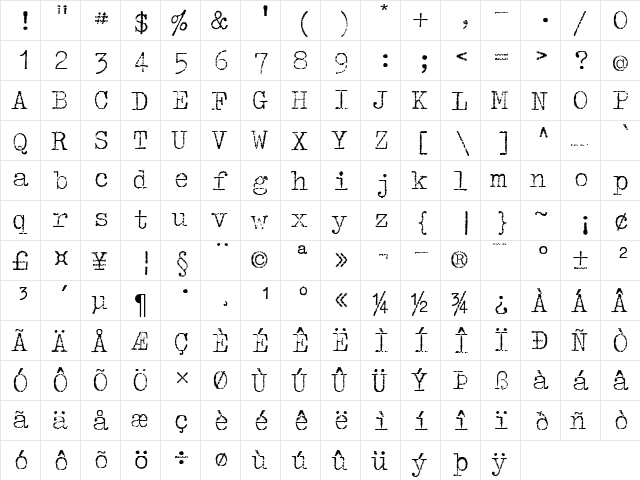
Tippa Regular
| Foundry | Peter Wiegel |
| Designer | Peter Wiegel, original typeface from Adler Tippa 1 |
Design Context for Tippa Typeface
Tippa is a composed and adaptable typeface that performs quietly and consistently across a wide range of design contexts.